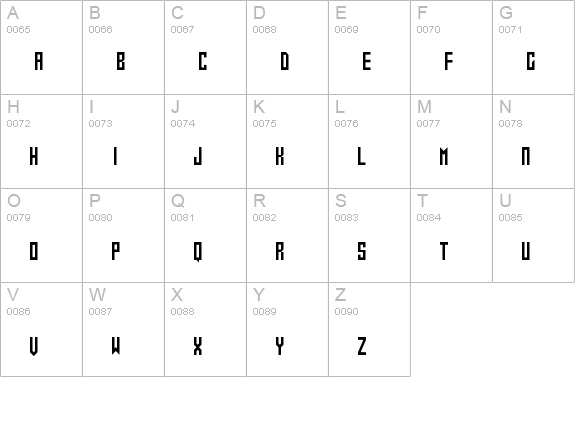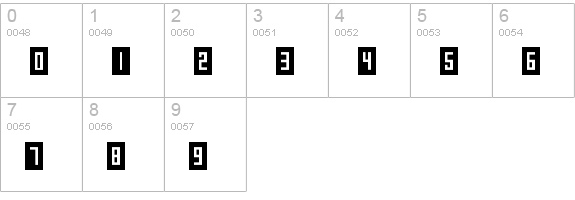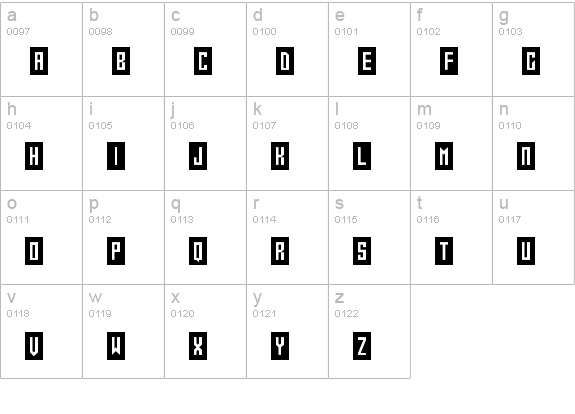
Gameshow is a donationware font in the Modern > Techno category, designed by Darrell Flood. It has been downloaded 85 times and is available for Windows, Mac and Linux.
Gameshow font is a bold and dynamic typeface that exudes a sense of excitement and energy, making it perfect for creating eye-catching designs. With its distinct retro style and playful vibe, this font is sure to add a fun and vibrant touch to any project. Whether you're working on posters, flyers, or branding materials, Gameshow font will make your text pop and stand out. Best of all, it is available for free download at FontsMarket.com, making it easily accessible for all your design needs. Don't miss out on this fantastic font that will take your designs to the next level!